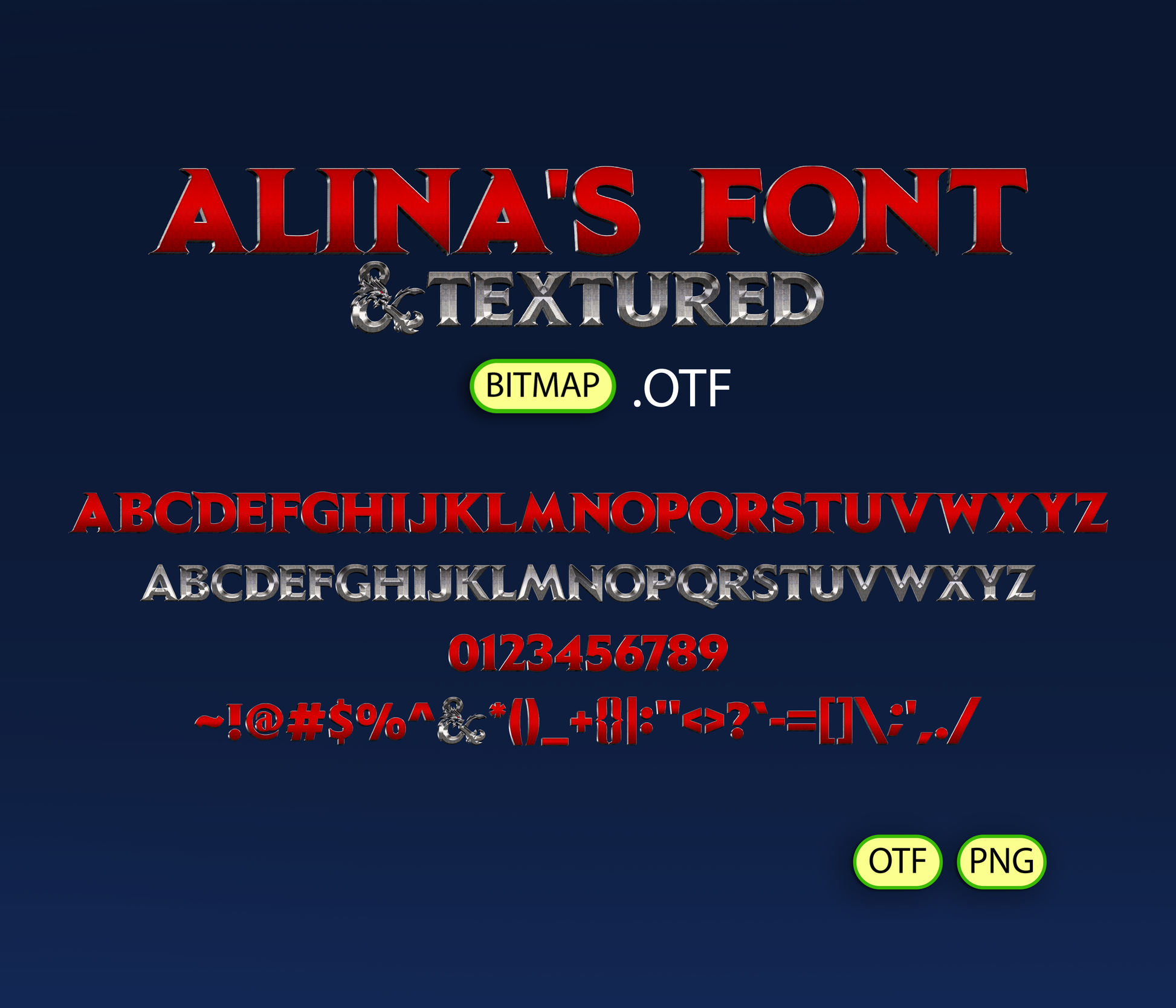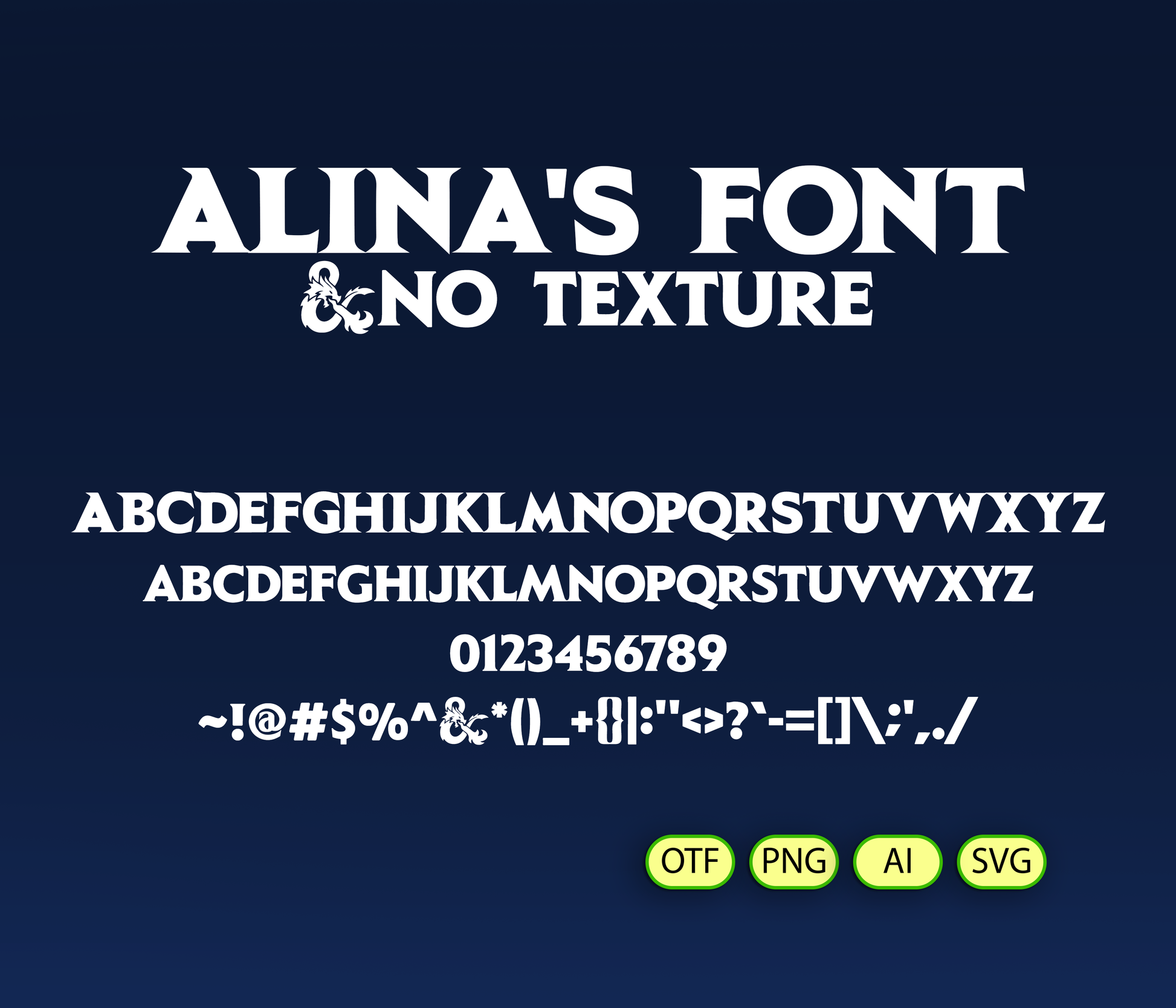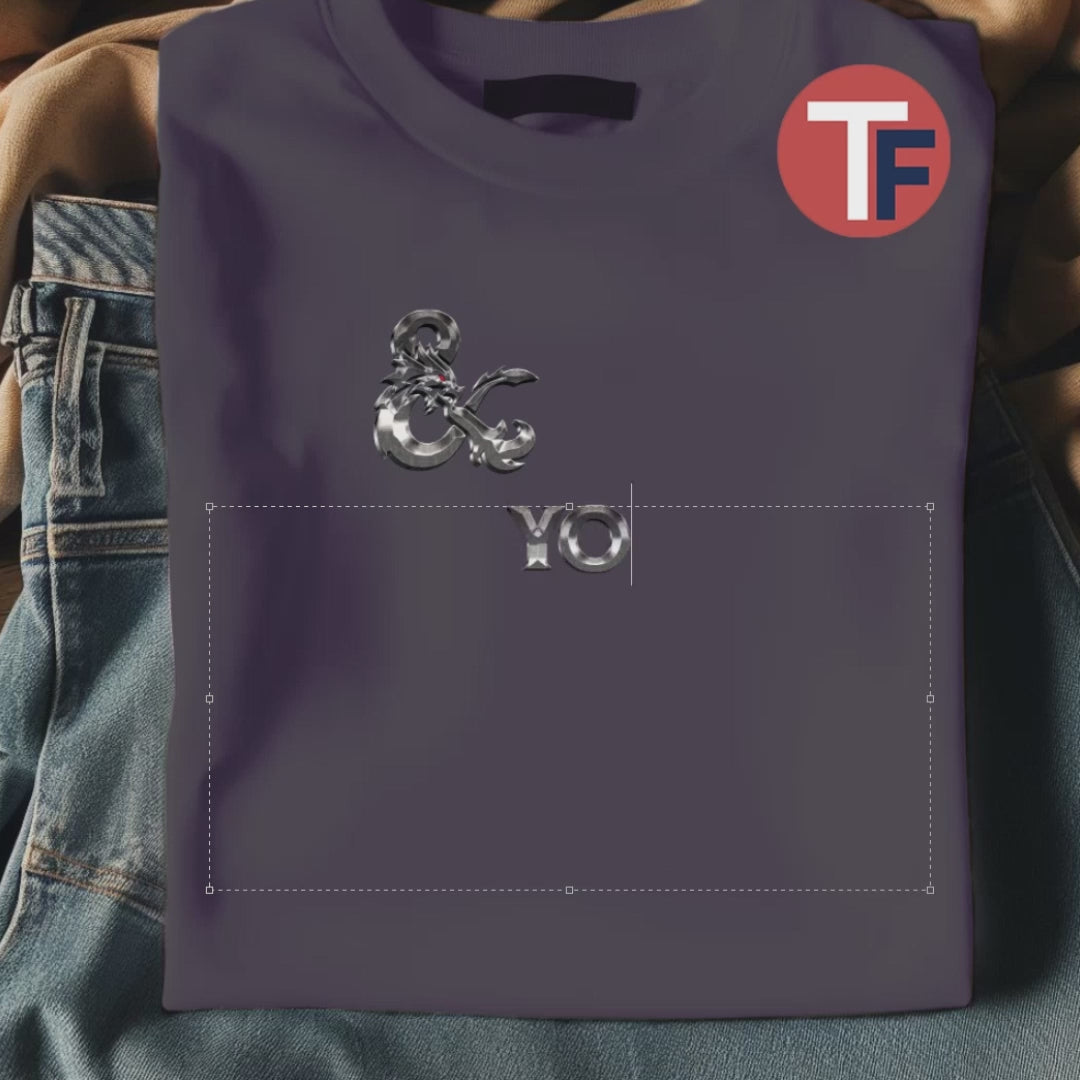
Fantasy Adventure Font Textured
Embark on an Epic Quest with the Fantasy Adventure Font
Capture the thrilling adventures and fantastical world of epic quests with our Fantasy Adventure-inspired font. Perfect for fans, event organizers, and designers, this font infuses projects with the magic and intrigue of legendary games. Whether creating event invitations, themed merchandise, or digital content, our Fantasy Adventure font brings a heroic and mystical essence to your designs.
Our Fantasy Adventure-inspired font features intricate, medieval-style characters with bold, sharp lines that evoke grandeur and mystery. This versatile font is ideal for various applications:
To ensure maximum usability and flexibility, our Fantasy Adventure-inspired font includes both textured and non-textured variants. The non-textured version ensures compatibility with all types of software, including Canva, allowing users of all skill levels to seamlessly incorporate the font into their designs.
Many seek out a Fantasy Adventure Font generator online to mimic this look. Steer clear! No font generator can match the quality of this Fantasy Adventure Font, available in two versions: a textured colored font and a simple font, ideal for use with a cutting machine.
Our Fantasy Adventure font pays tribute to legendary games while empowering you to infuse designs with rich and adventurous spirit. Whether crafting promotional materials, unique merchandise, or personal projects, this font allows you to communicate with the depth and excitement of epic quests. Ready to embark on a creative journey with the spirit of adventure? This font unlocks a world of captivating design.